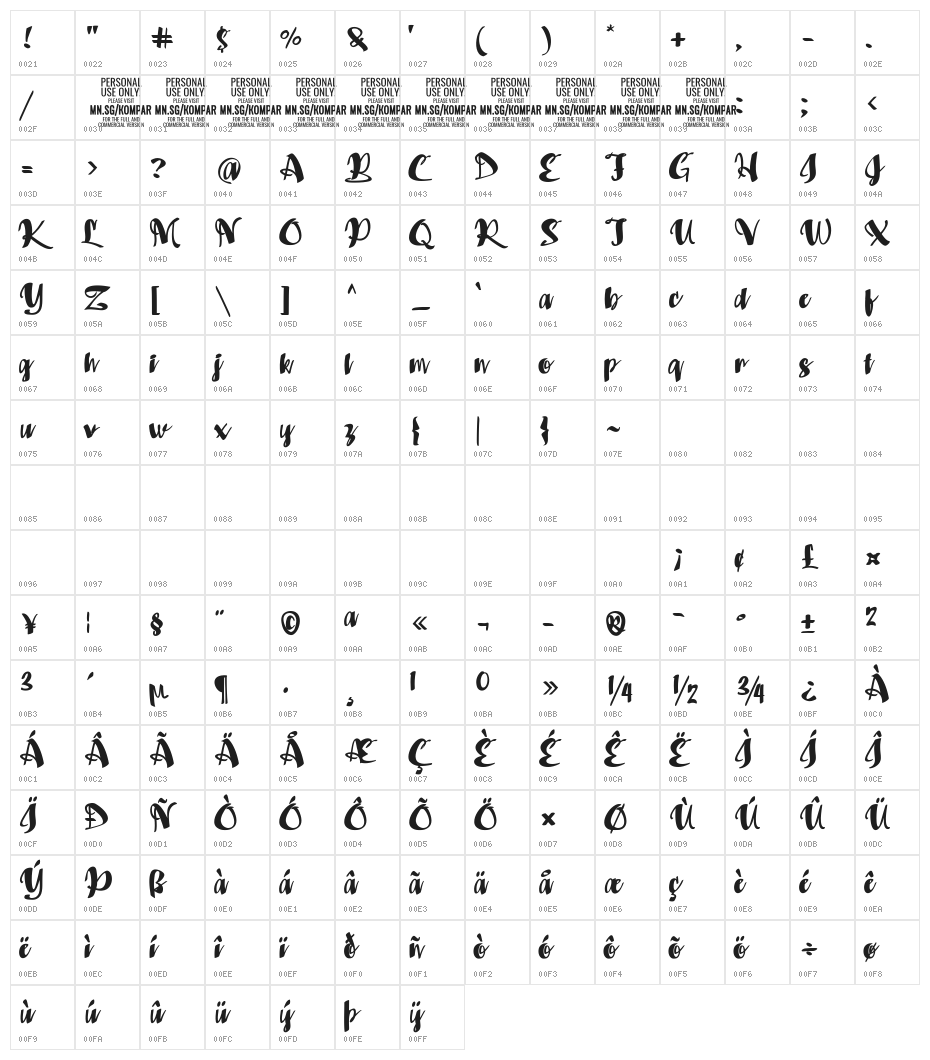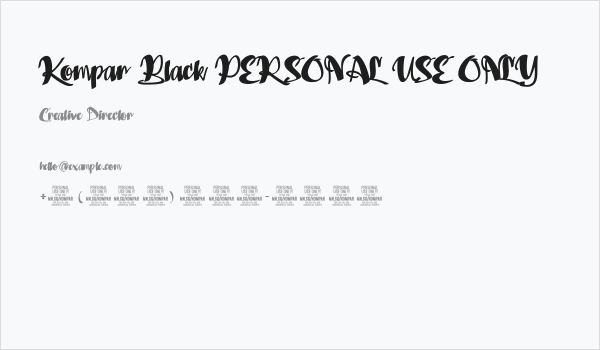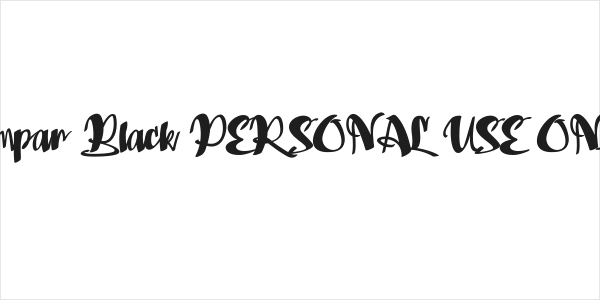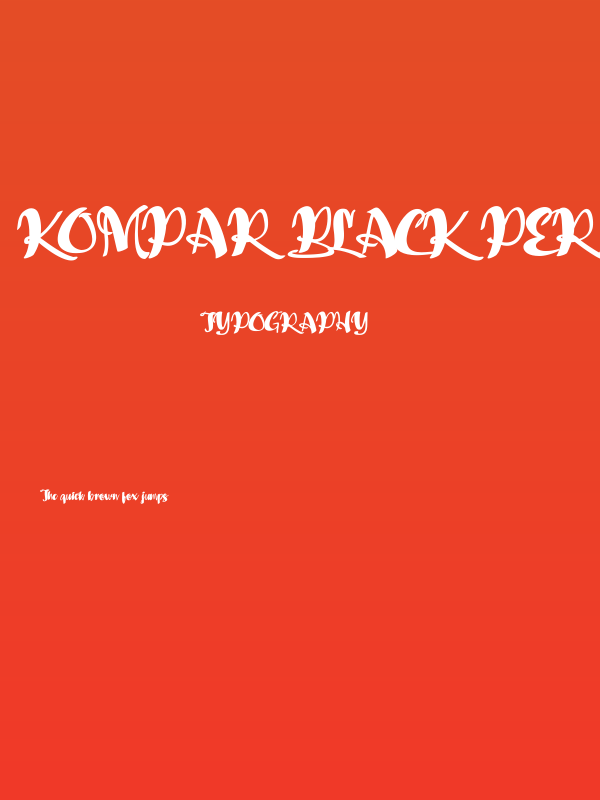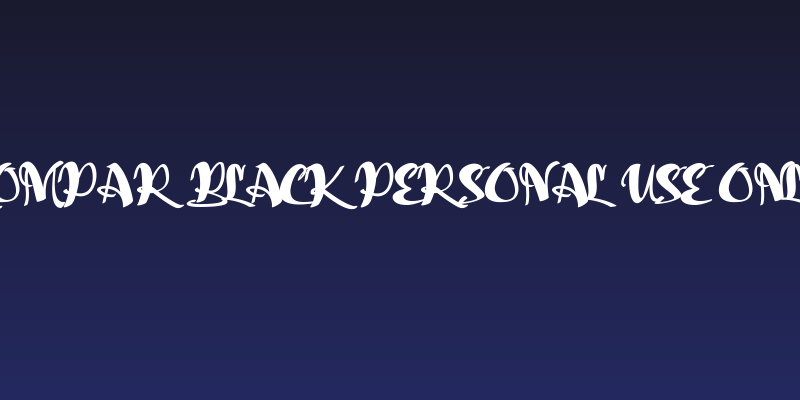
Kompar Black PERSONAL USE ONLY Font
Kompar Black PERSONAL USE ONLY Description
This font features a bold and dynamic script style with a strong presence. The uppercase letters have a distinctive flair with exaggerated curves and sharp angles, giving them a dramatic and artistic look. The lowercase letters maintain a consistent flow, enhancing the script's fluidity. The numerals and special characters are designed to match the overall aesthetic, providing a cohesive appearance. This font is ideal for projects that require a bold and expressive touch, such as branding, posters, and creative designs.